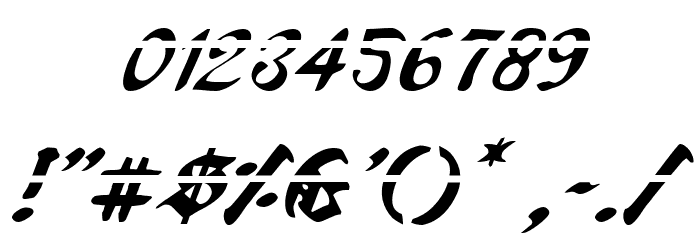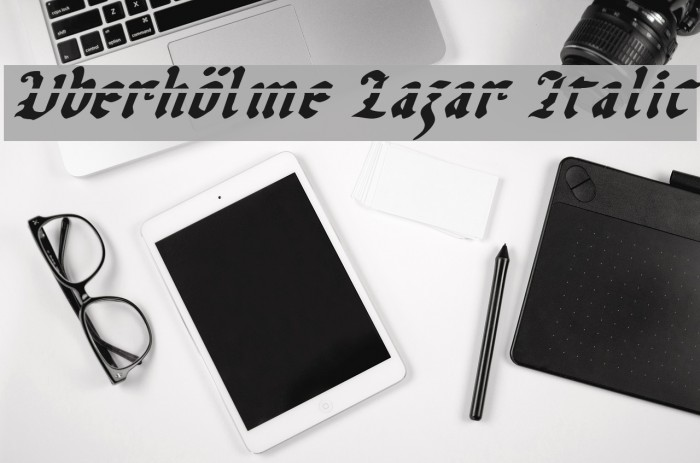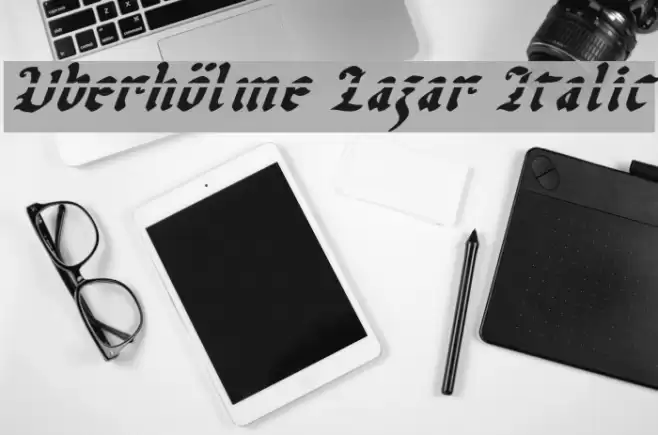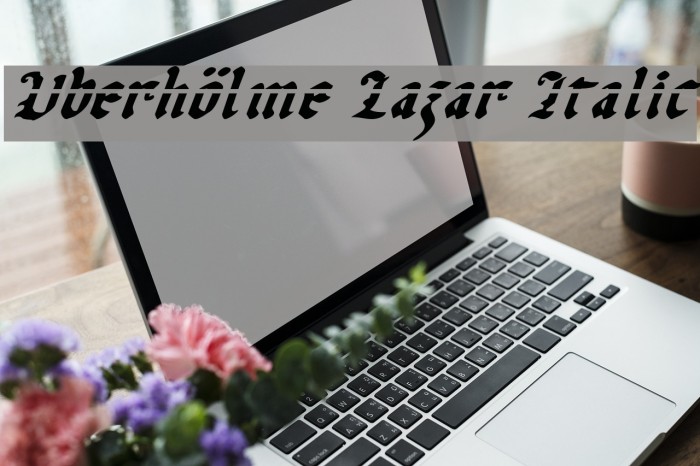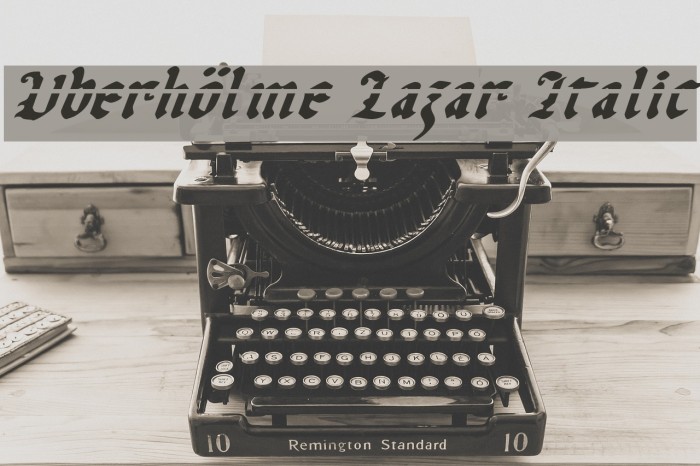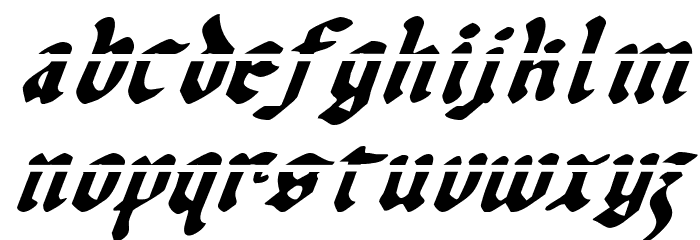
Uberhölme Lazar Italic Font
Uberhölme Lazar Italic Description
This font features a bold, italicized style with a distinct blackletter influence, characterized by sharp, angular strokes and a dramatic flair. The uppercase and lowercase letters maintain a consistent slant, enhancing the italic nature of the typeface. The numerals and special characters follow the same stylistic cues, ensuring uniformity across all glyphs. The font's high contrast between thick and thin strokes adds to its striking appearance, making it suitable for impactful designs. Its decorative elements and historical undertones evoke a sense of tradition and elegance.
| Use Case | Logos, Headlines, Posters |
| Proposed Projects | Ideal for use in branding, logos, posters, and any project requiring a dramatic and historical touch. |